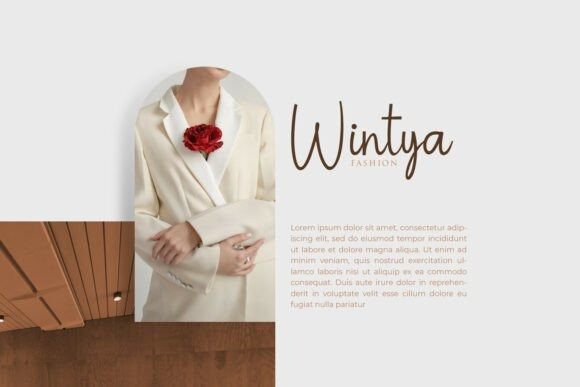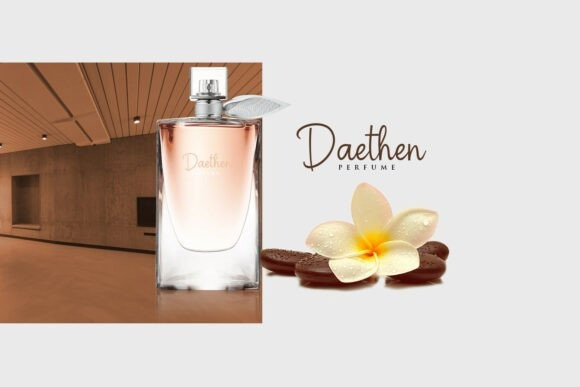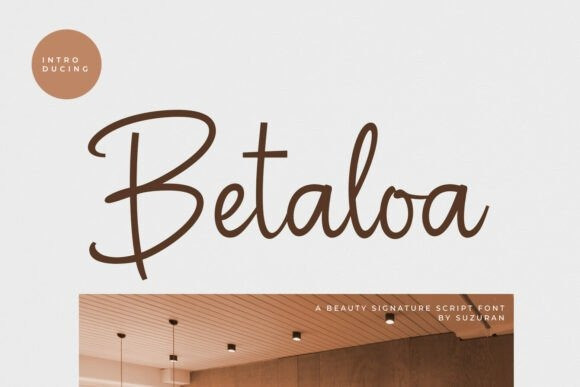
Betaloa Script Font
Betaloa Script Font is a modern script font with an elegant touch and natural flow, designed to bring a premium feel to every design. Its smooth and stylish letterforms remain highly legible, making it perfect for logos, branding, product packaging, wedding invitations, social media content, and other commercial projects. More than just typography, Betaloa is a visual element that elevates your design into something timeless and sophisticated. Turn simple ideas into masterpieces with Betaloa – the script font that makes every detail shine.